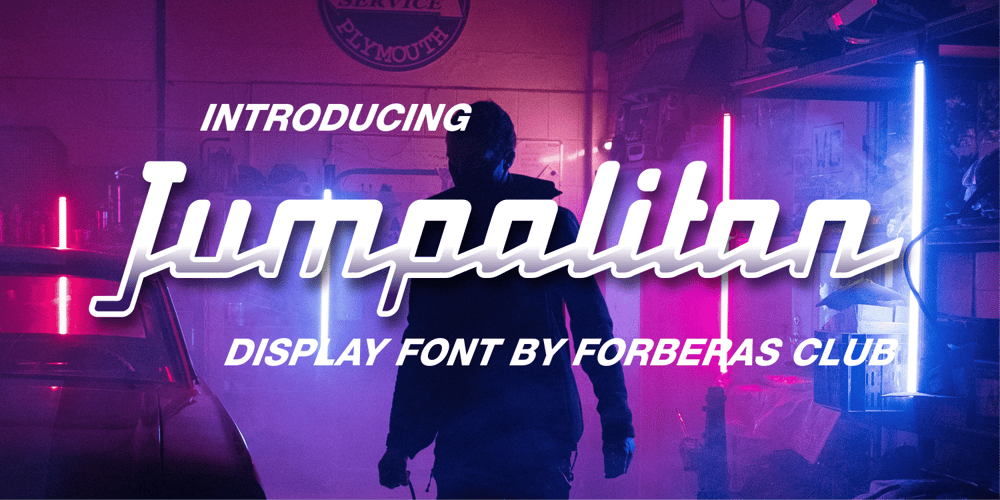
Jumpalitan Font Family was designed by ANGGI HERMAWAN and published by Forberas Club. Jumpalitan contains 1 styles and family package options. Jumaplitan font special for retro modern style. Will be good if you use for something like logotype, retro logo, typeface, simple and clean design.